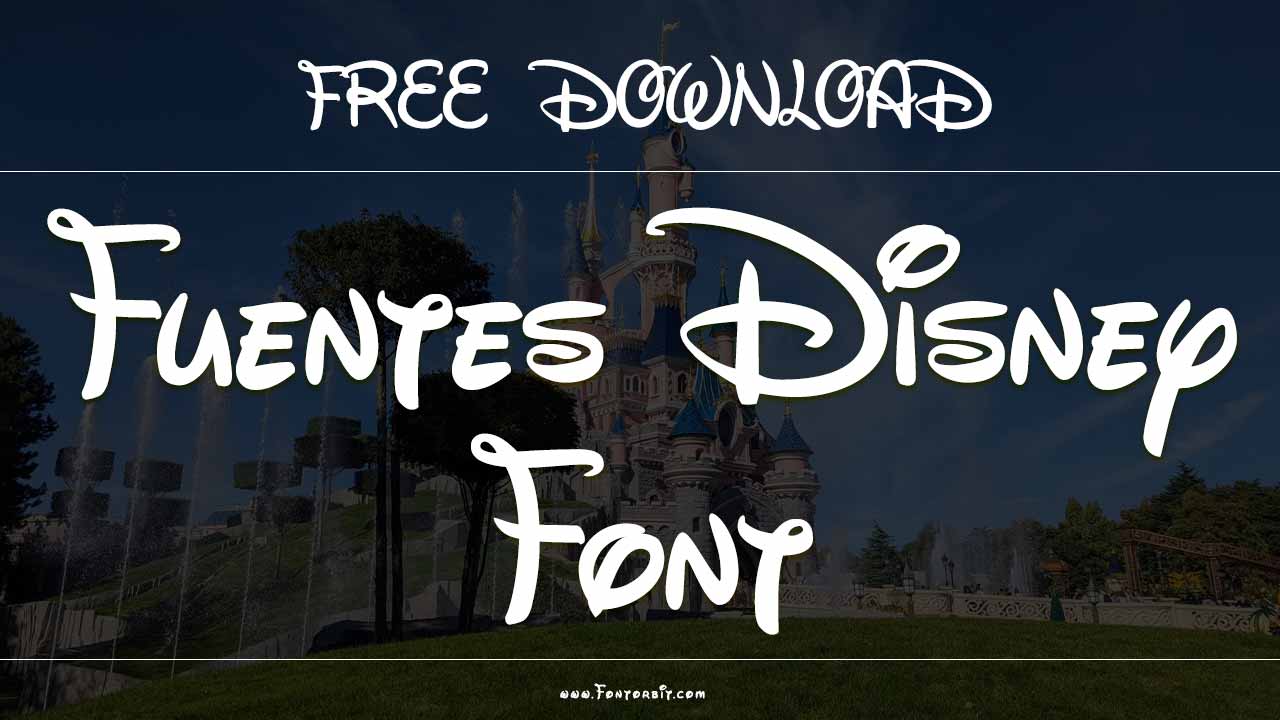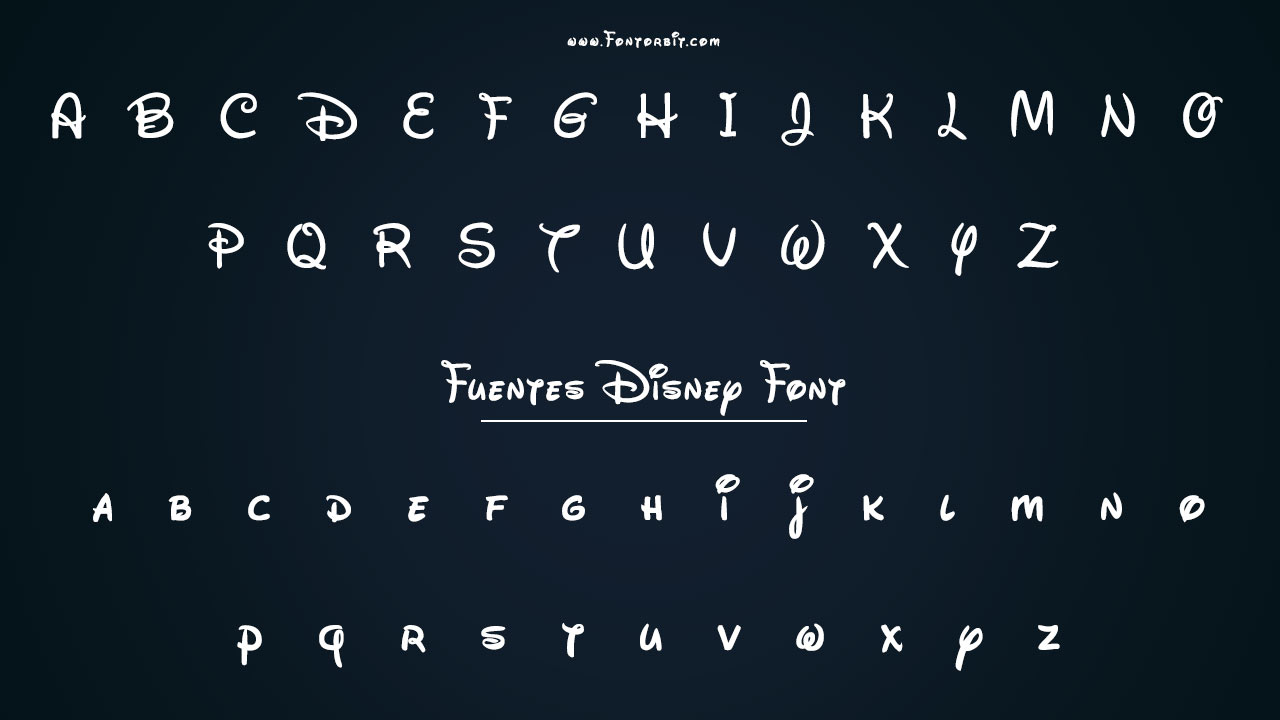
When it comes to capturing the magic of Disney, fonts play an essential role in bringing stories to life. Designed by Justin Callaghan, Waltograph is one of the most popular choices for Disney-inspired designs. Whether you’re working on a signage project, graphic design, or printed materials, Disney fonts offer a perfect mix of nostalgia, elegance, and creativity.
The Magic of Disney Fonts
Disney fonts, also known as Fuentes Disney Font, encompass a wide range of styles, including modern fonts, retro fonts, vintage fonts, and decorative fonts. These fonts have been widely used in official Disney branding, cartoons, character designs, and signage.
Popular Disney Font Families
Disney-inspired fonts come in different styles, from handwritten fonts to calligraphy fonts. Some of the most well-known Disney font families include:
- Waltograph Font – Inspired by Walt Disney’s signature
- AL Cinderella – A fairytale-inspired script font
- Mickey Ears Font – Featuring Disney character elements
- Mouse Memoir Font – A playful, cartoon-style font
- Malefic Font – An elegant font inspired by Maleficent
- Monster AG Font – Based on the Monsters Inc. logo
- Tangled Font – A decorative font with swirling letters
Best Uses for Disney Fonts
Disney fonts are versatile and work well for various design applications, such as:
- Logos and branding – Perfect for creating a magical brand identity
- Printed materials – Great for invitations, posters, and signage
- Graphic design – Enhances designs in Adobe Illustrator and MS Word
- SVG format designs – Works well for Cricut and Silhouette projects
- Disney-inspired projects – Ideal for fan art and themed events
Similar Fonts to Disney Fonts
If you’re looking for alternative fonts that resemble Disney typography, consider:
- Magical Kingdom – A serif font with a fairy-tale vibe
- Kingdom Hearts – Inspired by the famous video game series
- Fantasy Script – A calligraphy-style font perfect for storytelling
- Happiest Place – A modern take on the Disney logo
1. What is the official Disney font?
The official Disney font is custom-made for branding, but Waltograph is the closest alternative.
3. What are the best Disney-inspired fonts for MS Word?
Waltograph, AL Cinderella, and Mouse Memoir are great choices for Microsoft Word.
5. What is the best Disney font for signage?
Mickey Ears Font and Waltograph UI work well for signage and large prints.
7. What font is similar to Waltograph?
Fonts like Magical Kingdom and Happiest Place offer a similar whimsical feel.